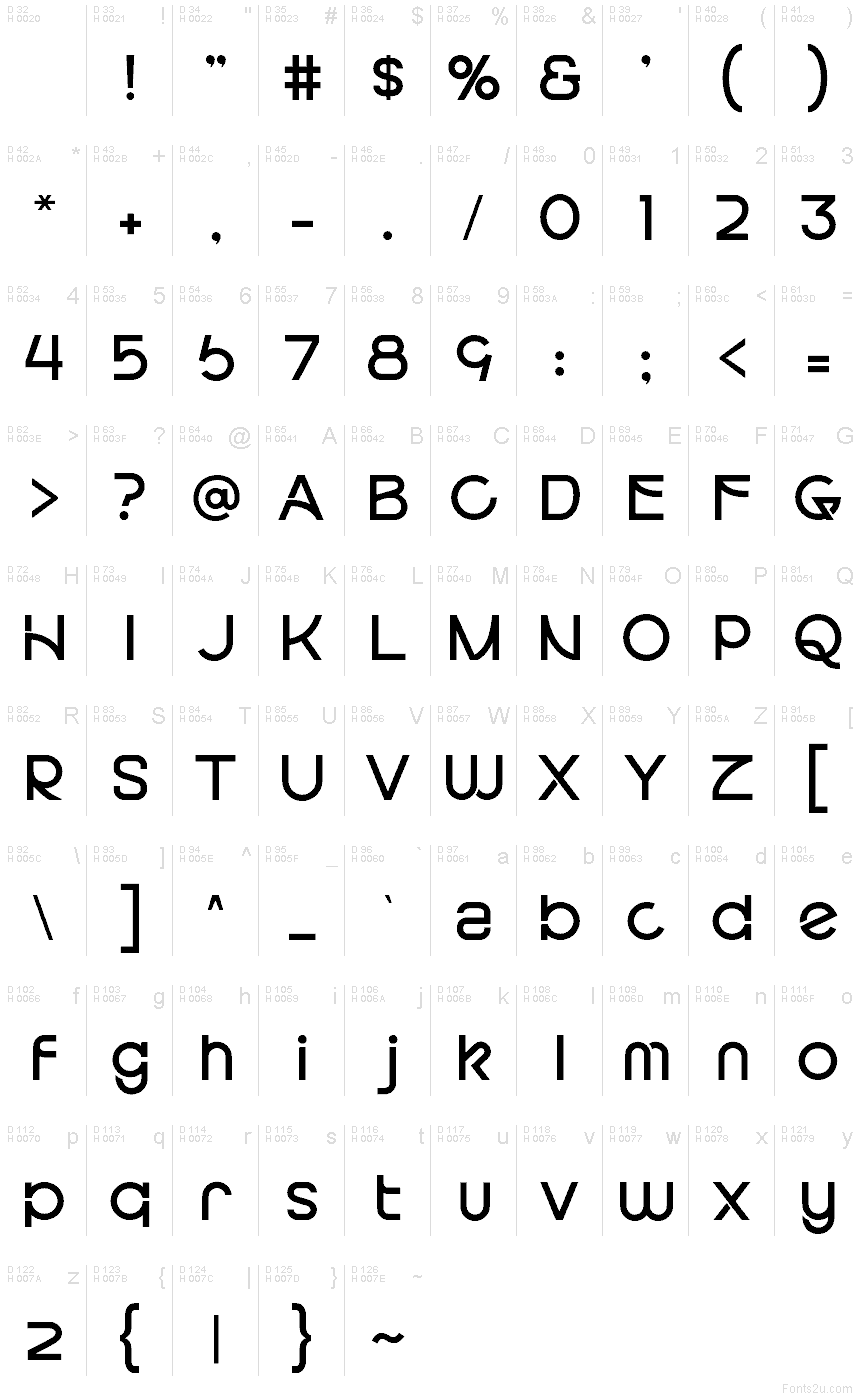
Colmeak font by Khurasan is a free modern display font. Built around sculpted geometric strokes, it stands out with rounded outer curves and sharply clipped interiors that create a clean, high-contrast rhythm. The forms feel engineered-sleek, monoline, and slightly futuristic-yet they keep just enough warmth to stay approachable.
Using Colmeak, headlines snap into focus and carry energy without shouting. This free font shines on tech branding, app headers, esports logos, gadget packaging, event posters, and sci‑fi titles. Keep it large with tight tracking for maximum impact, and pair it with a neutral sans or grotesk for body copy to let the shapes breathe.